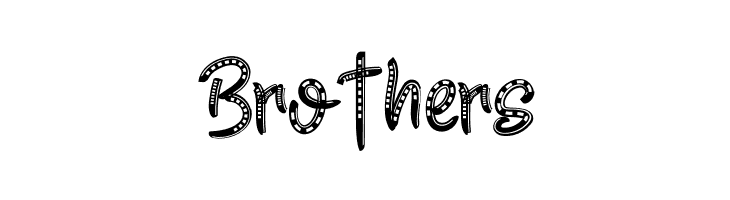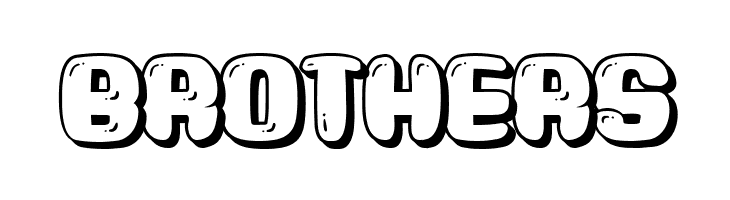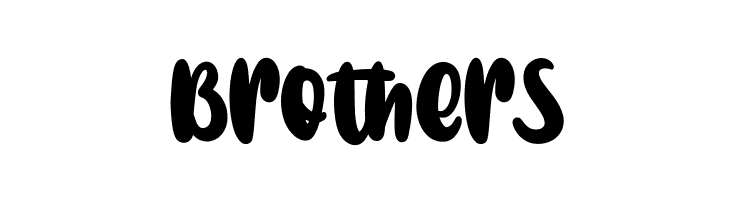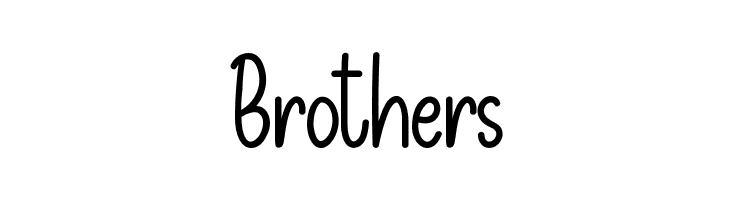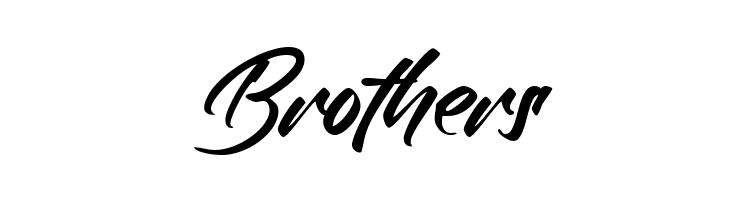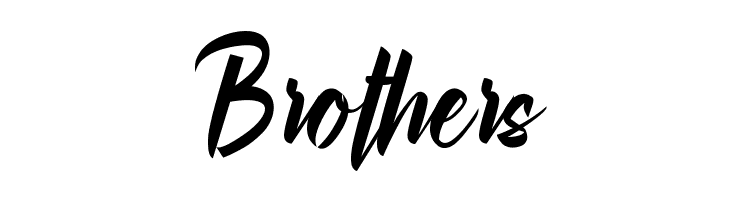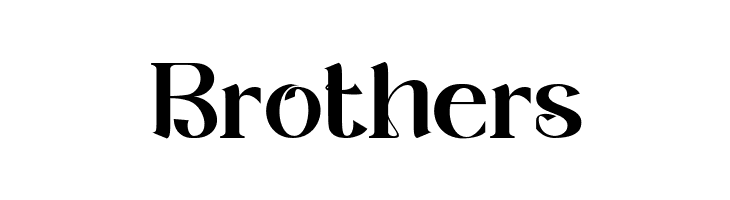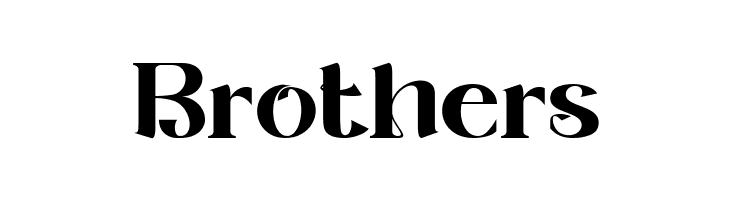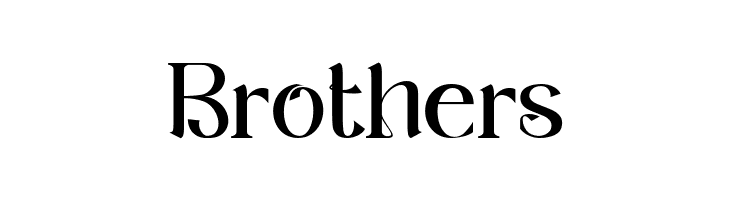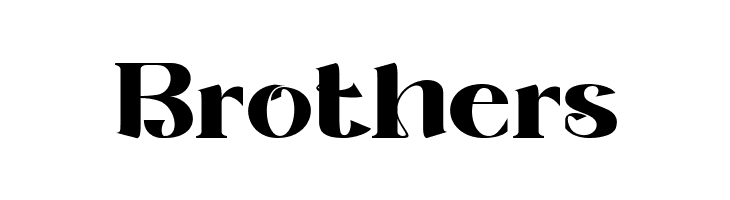
• Tiraspol Trolley
A bold, high-contrast font with a vintage flair, perfect for dramatic designs.
• HollaRollaRegular
A playful, decorative font with bold, hand-drawn letters featuring dotted embellishments.
• Roller Regular
A playful, bold font with a bubble-like, cartoonish style.
• Carolline Demo
A flowing, cursive font with elegant connections and moderate stroke contrast.
• AllTheRollPersonalUse
A playful, bold, and whimsical handwritten font with retro flair.
• Caberolla Free Regular
A bold, playful script font with a handwritten, flowing style.
• Rolling Bold Personal Use
A bold, dynamic script font with flowing strokes and a strong visual impact.
• Sugar Roll Demo
A playful, handwritten font with a smooth, flowing style and rounded edges.
• Rollingtime
A bold, cursive handwritten font with dynamic and expressive strokes.
• Rollingdore
A bold, dynamic script font with fluid strokes and a sense of motion.
• ROLLER ALIKA Medium
A bold, decorative font with a modern vintage style and angular serifs.
• ROLLER ALIKA DemiBold
A bold, decorative font with dynamic curves and sharp angles.
• ROLLER ALIKA Regular
A bold, decorative font with artistic and modern elements.
• ROLLER ALIKA SemiBold
A bold, decorative font with a modern and dynamic style.
• ROLLER ALIKA Bold
A bold, decorative font with modern geometric elements and elegant flourishes.